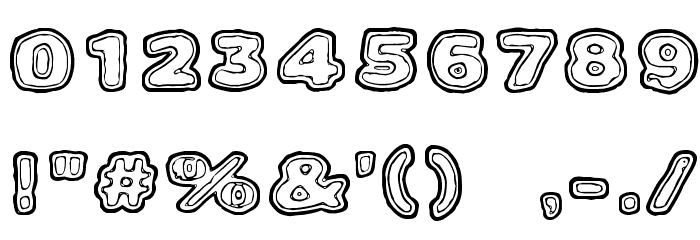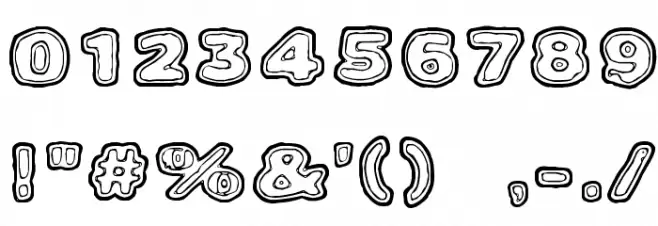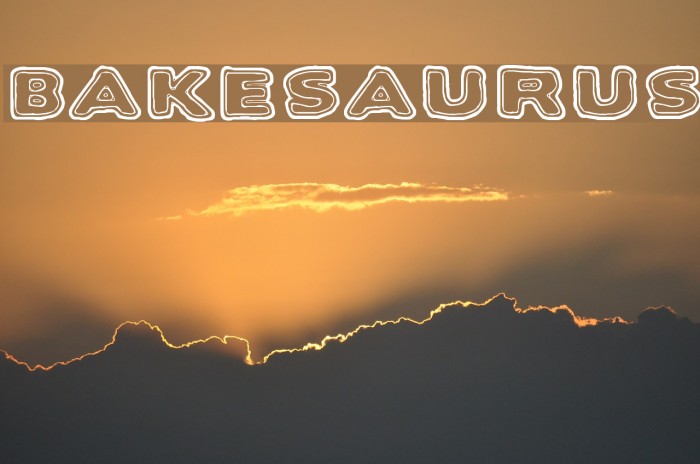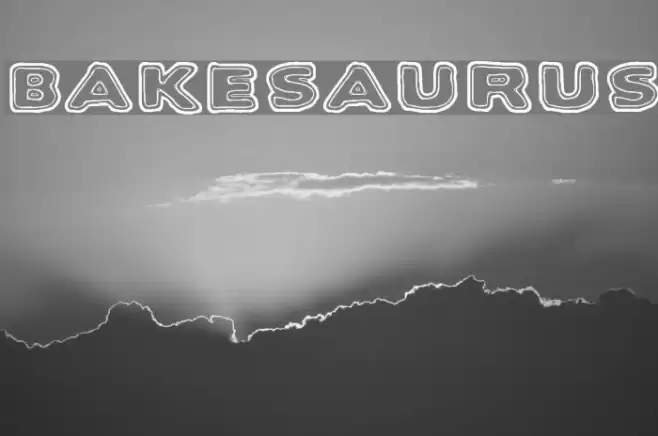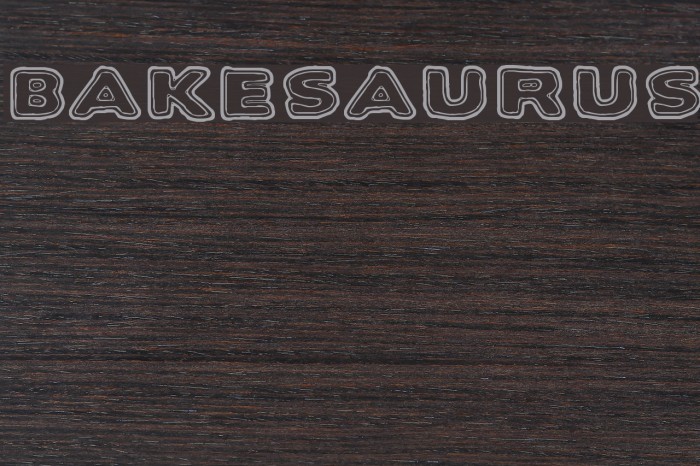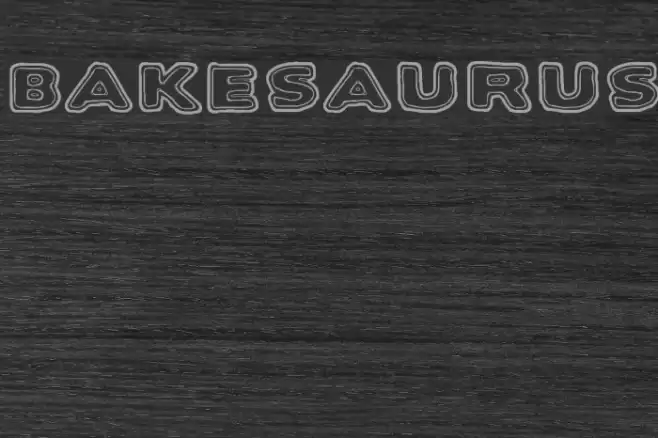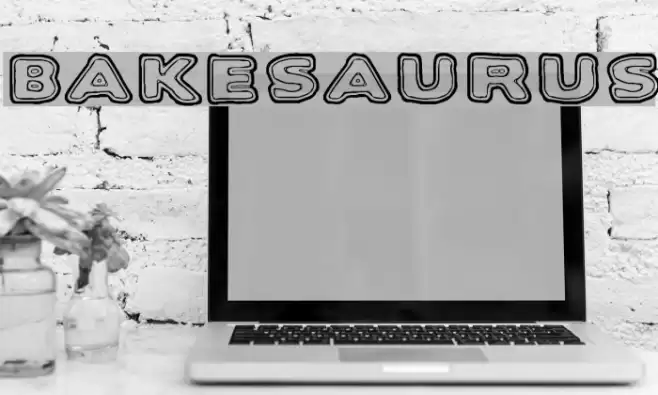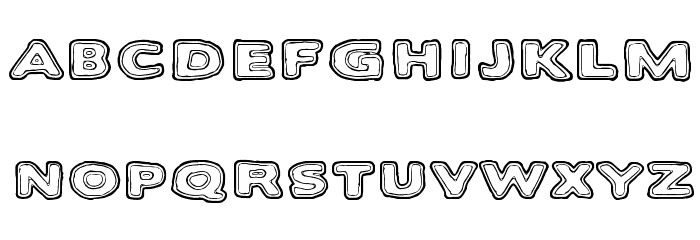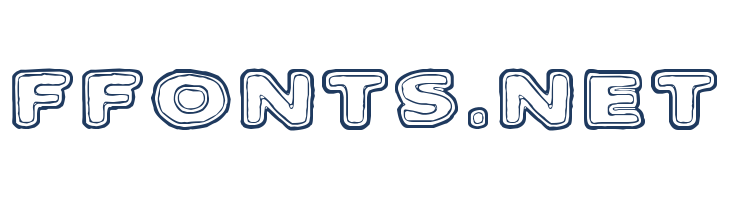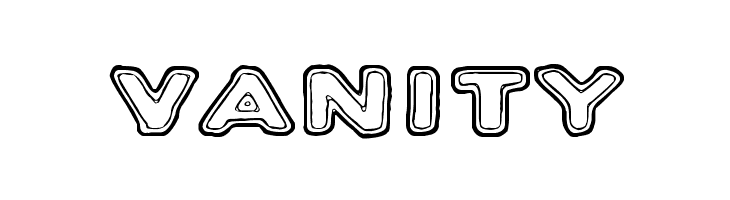
Bakesaurus Font
Bakesaurus Description
This playful and bold font features a unique outline style that gives each character a dynamic and fun appearance. The letters are uppercase and have a slightly rounded, cartoonish look, making them ideal for projects that require a touch of whimsy. The numbers and special characters maintain the same playful aesthetic, ensuring consistency across all text elements. The font's thick outlines and bold presence make it stand out, perfect for eye-catching designs.
| Overall Style | Playful, Fun, Cartoonish |
| Proposed Projects | Ideal for children's books, playful branding, posters, and party invitations. |